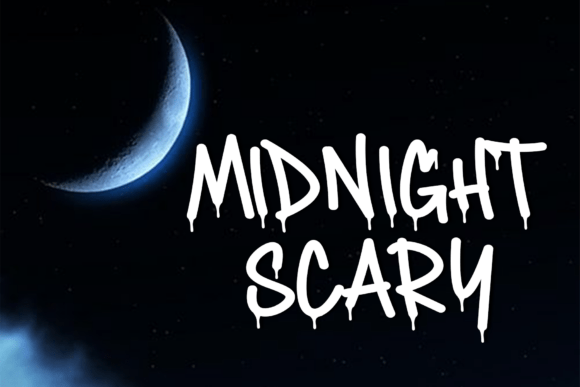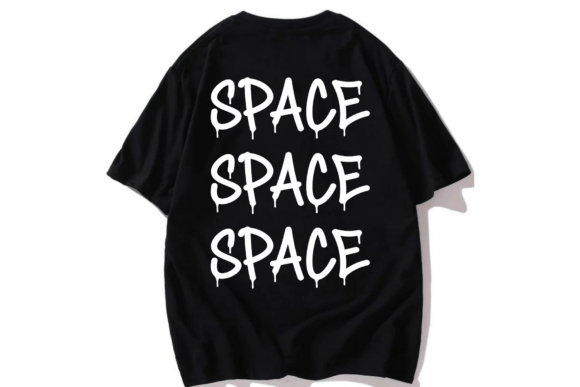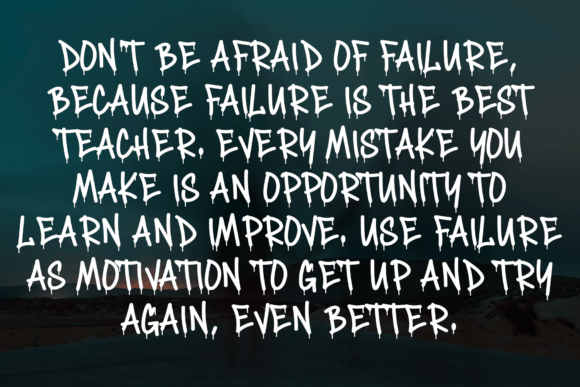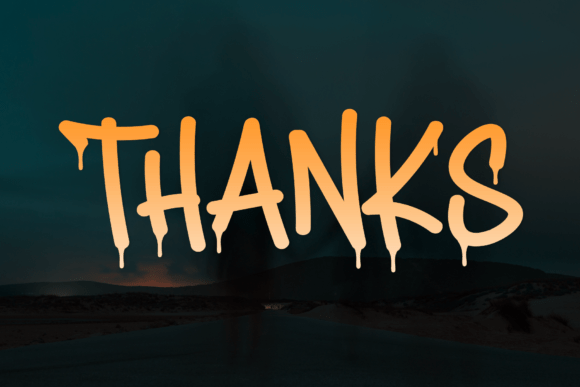
The Spooky Charm of Ghosting Font: A Designer’s Delight
I still remember the time I was working on a Halloween-themed project for a client, and I just couldn’t find the right font to capture the spooky yet playful vibe they were looking for. I scoured the internet, tried out dozens of fonts, but nothing seemed quite right. That was until I stumbled upon the Ghosting Font. It was like a breath of fresh air – thick, rounded letters with a distinctive “dripping” effect that gave it a cartoonish, unsettling yet fun appearance. I knew right then and there that it was the perfect fit for my project.
An Honest Review of Ghosting Font
What I Love About Ghosting Font
- ✨ Unique and thematic design perfect for Halloween, horror, or playful spooky themes
- ✅ Thick, rounded letters with a distinctive “dripping” effect that adds a spooky touch
- ✅ Excellent for party invitations, horror game titles, costume apparel, seasonal promotions, and more
- ✅ Easy to read and recognize, even in large or small sizes
While Ghosting Font is an amazing addition to any design project, there are a few things to keep in mind. 🤔 For example, the font’s unique dripping effect can be a bit overpowering if used in large blocks of text. Additionally, some of the letters may not be suitable for use in formal or professional contexts. ⚠️ However, for the most part, these quirks are minor and can be easily worked around.
The Backstory Behind Ghosting Font
The Ghosting Font was designed with the intention of creating a unique and eye-catching font that’s perfect for Halloween, horror, and spooky themes. The designer wanted to create a font that’s both playful and unsettling, with a distinctive “dripping” effect that adds a touch of eeriness to any design project.
| Q: What type of projects is Ghosting Font best suited for? | A: Ghosting Font is perfect for Halloween, horror, or playful spooky themes, and is great for party invitations, horror game titles, costume apparel, seasonal promotions, and more. |
| Q: Is Ghosting Font easy to read? | A: Yes, Ghosting Font is designed to be easy to read and recognize, even in large or small sizes. |